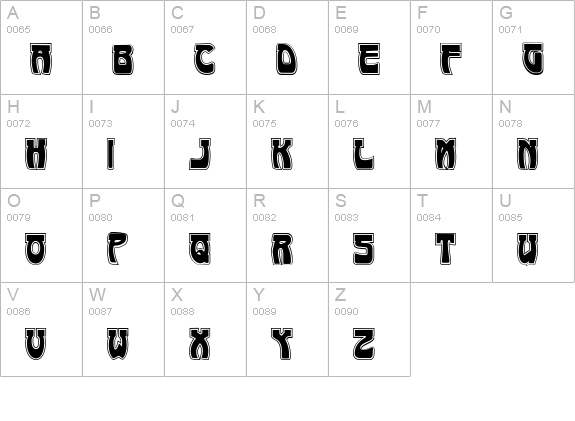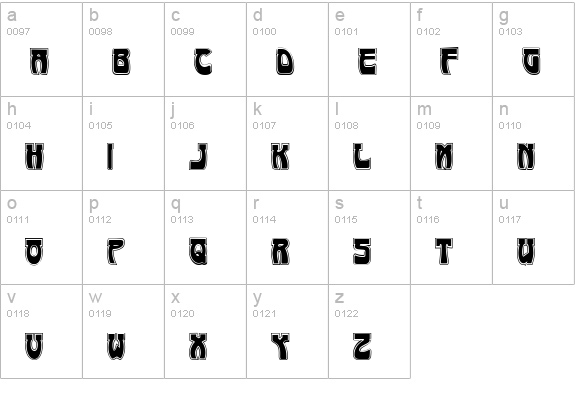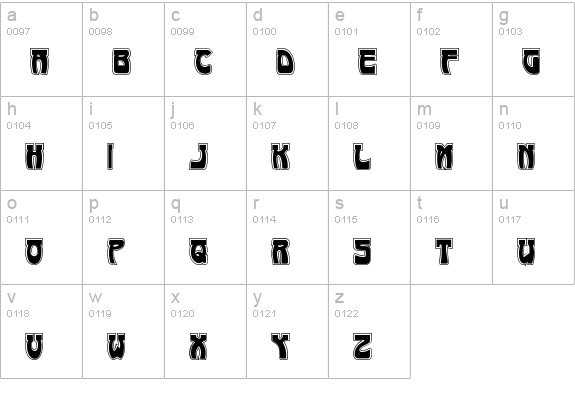
Art-Nouveau 1895-Contour Font Details
The Art-Nouveau 1895-Contour font is a stunning display of intricate and elegant design inspired by the Art Nouveau movement of the late 19th century. Its flowing lines and delicate curves evoke a sense of grace and sophistication, making it the perfect choice for projects that require a touch of vintage charm. This unique font captures the essence of a bygone era while remaining timeless and versatile. Whether you're designing a poster, branding materials, or a special invitation, the Art-Nouveau 1895-Contour font will add a touch of class and refinement to your work. The best part is that this exquisite font is completely free to download at FontsMarket.com. So why wait? Add a touch of Art Nouveau elegance to your designs today with the Art-Nouveau 1895-Contour font.